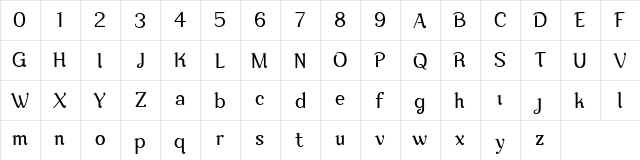
Nova-Classic-Personal-Use-Only Regular
Design Context for Nova-Classic-Personal-Use-Only Typeface
Nova-Classic-Personal-Use-Only has the warm character of retro typography — evoking diners, record sleeves, and the golden age of print advertising.
Font Pairing: Combine Nova-Classic-Personal-Use-Only with a simple slab or neutral sans — period-accurate companions reinforce the vintage feel without competing for attention.
Pro Tip: Lean into Nova-Classic-Personal-Use-Only's period character by pairing it with aged paper textures, muted colour palettes, and vintage illustration styles.